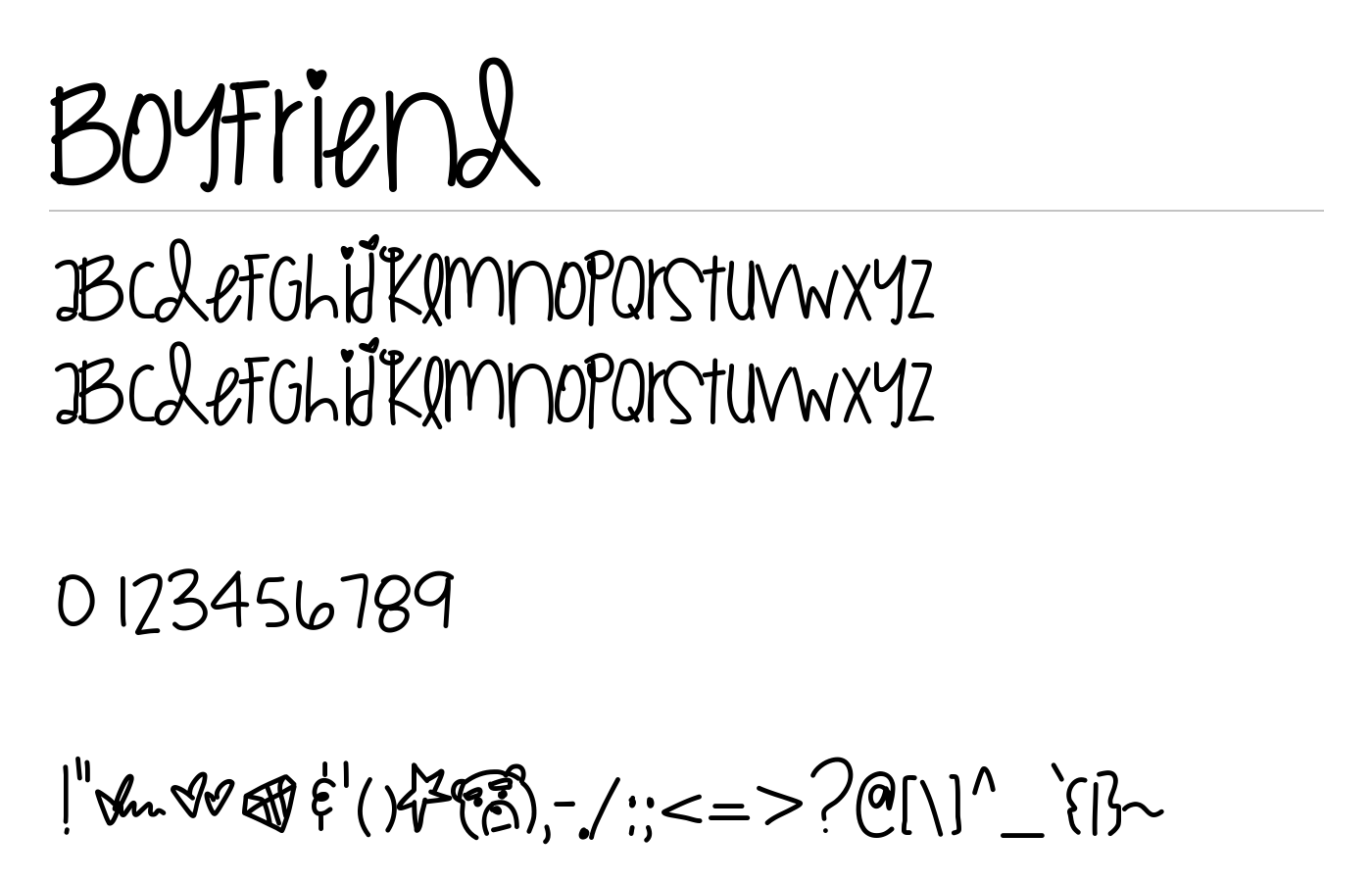
Boyfriend Font is a playful and informal handwritten typeface with a casual, youthful vibe. Its tall, narrow letterforms feature charming heart accents on the dots of the i and j, and quirky, whimsical shapes that give it a friendly and approachable personality. Perfect for creative projects like greeting cards, social media graphics, and casual branding, this font adds a touch of fun and personal flair to any design.
Boyfriend Font
About Boyfriend Font